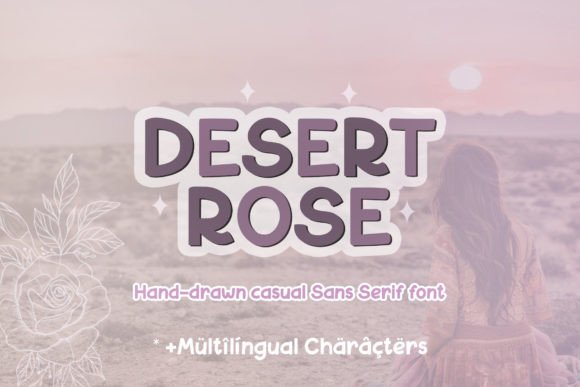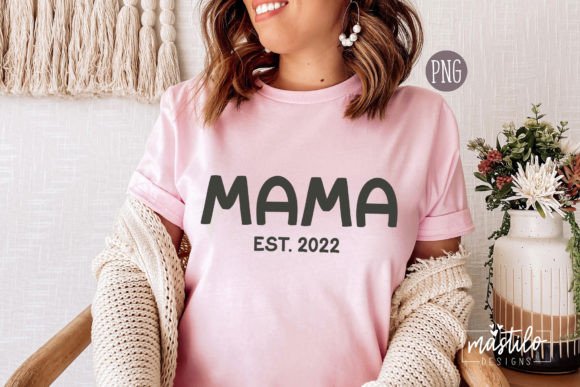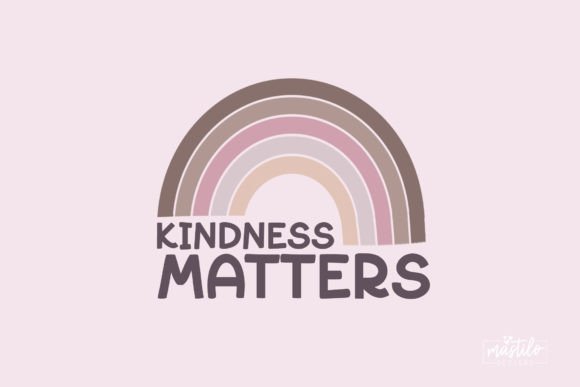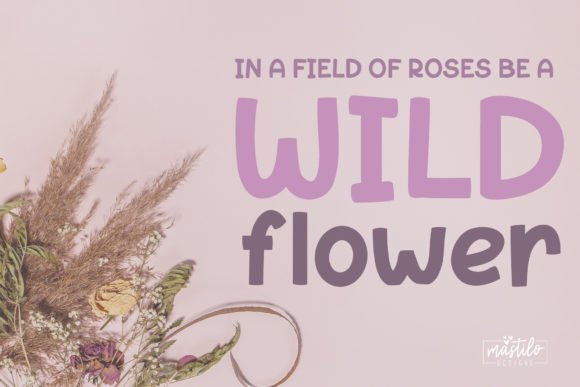
Desert Rose Font: A Cute Sans Serif for Cricut, DIY & Social Media
About the Desert Rose Font
Presenting Desert Rose Font, a unique and stylish typeface that will make your work stand out. Introducing Desert Rose, a hand-drawn Sans Serif display font. A versatile font, with possibilities for use for all your projects. With the possibility to change the Uppercase strokes to different colors, it makes a great craft font for all your projects.
Use it to design logos + branding, create retro shirt designs and other apparel, stickers, phone cases, home decor, social media templates and Instagram quotes, Cricut and silhouette projects, procreate and so much more.
Desert Rose’s hand-drawn quality makes it ideal for headlines, short text blocks, and branding applications where a touch of handcrafted charm is desired. It excels in projects needing a playful yet sophisticated feel, such as logos for boutiques, coffee shops, or artisanal food brands. Avoid using it for large bodies of text or UI elements; its unique stroke variation and informal nature compromises readability in extended use.
Pair Desert Rose effectively with a clean sans-serif like Montserrat for body copy, balancing its organic feel with a modern counterpart. For a more vintage aesthetic, consider pairing it with a serif font such as Playfair Display. A script font like Great Vibes could add a touch of elegance to projects where a more luxurious feel is required.
Desert Rose’s overall personality is best described as friendly, approachable, and slightly whimsical. Its versatility comes from its ability to blend a handmade aesthetic with a contemporary sans-serif structure. This makes it a suitable choice for projects that value both authenticity and visual impact.
Desert Rose Font Usage Examples
Desert Rose Font Example